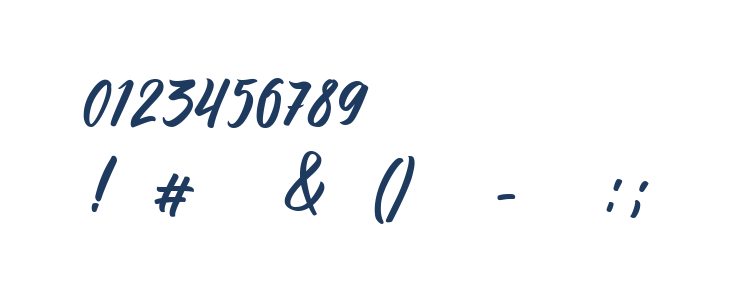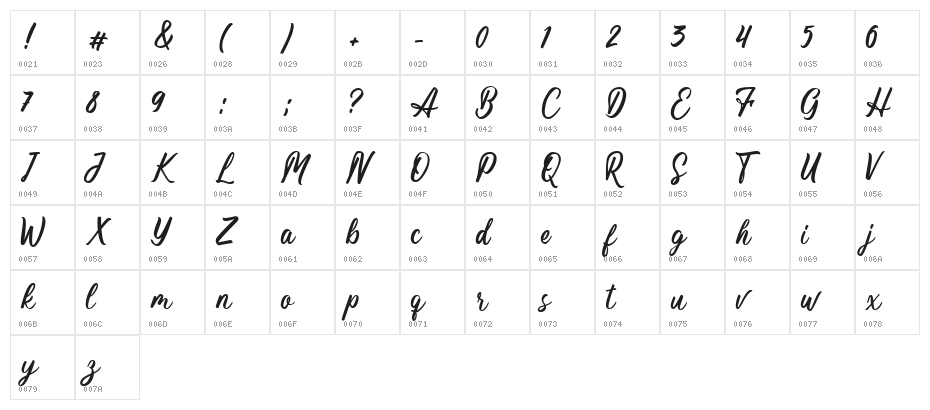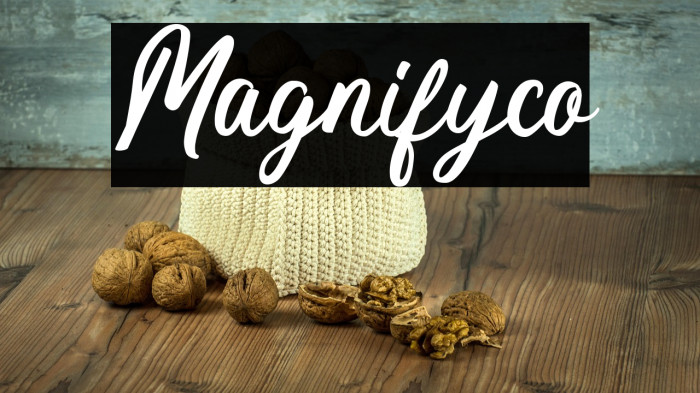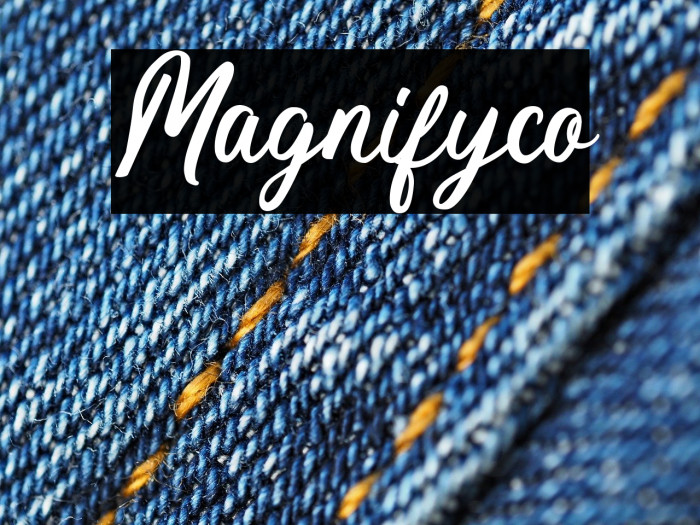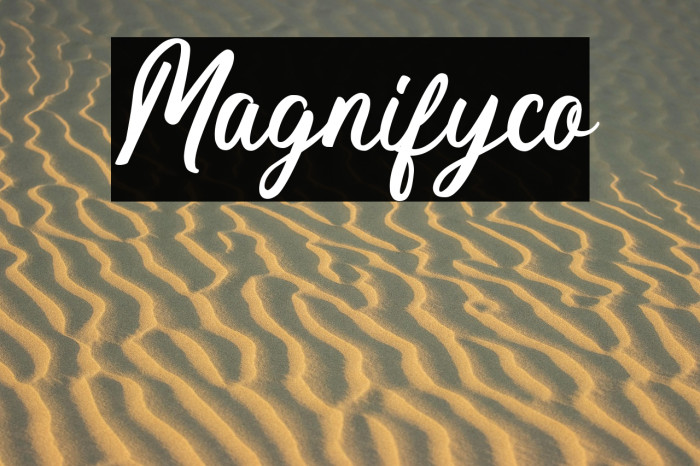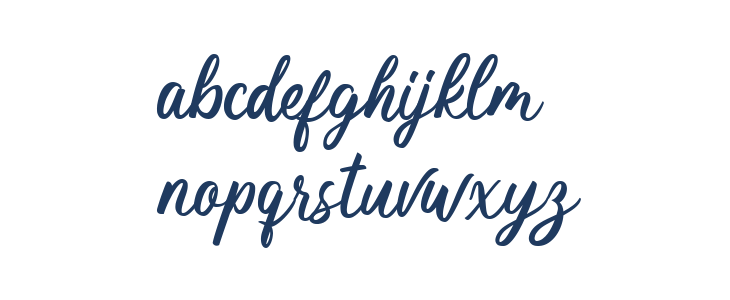
Magnifyco Font
Magnifyco Description
This font features a bold and expressive script style, characterized by its fluid, cursive strokes and dynamic flow. The uppercase letters are particularly striking, with exaggerated loops and swashes that give a sense of movement and elegance. The lowercase letters maintain a cohesive look, complementing the uppercase with their smooth, rounded forms. The numerals and special characters are crafted with the same attention to detail, ensuring consistency across all glyphs. This font's boldness and artistic flair make it ideal for projects that require a touch of sophistication and creativity.
| Use Case | Logos, Headlines, Artistic projects |
| Proposed Projects | Ideal for branding, invitations, greeting cards, and artistic posters. |